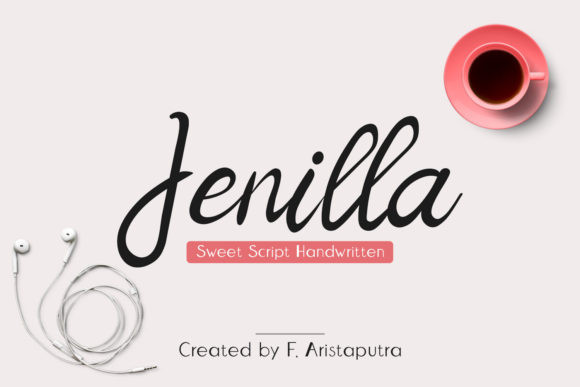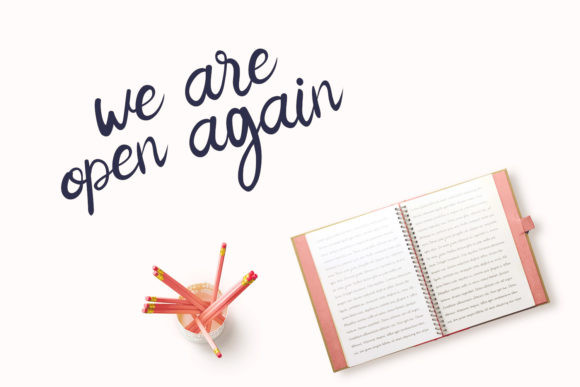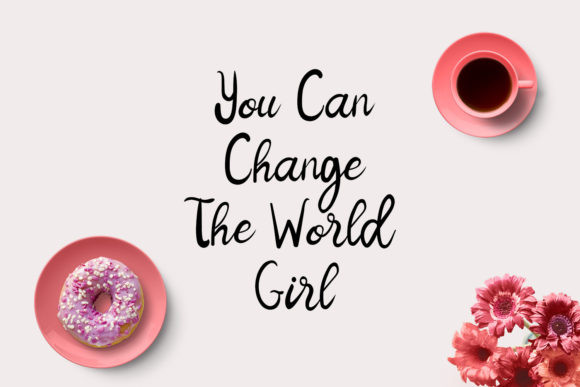
Jenilla Font
Jenilla is a great handwritten font carefully created with a touch of elegance. This is a beautiful combination of timeless elegance and authentic calligraphy. It features an incredibly classic style, while still keeping a friendly feel. Jenilla is the perfect font for making original and outstanding designs.